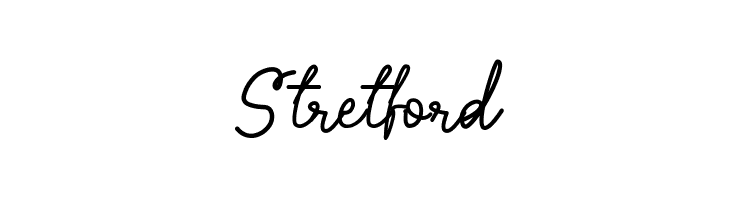
An ornate, decorative font with intricate flourishes and historical charm.
A bold, geometric font with a three-dimensional effect and strong visual impact.
A bold, 3D geometric font with a strong, impactful presence.
A bold, expressive script font with fluid, cursive strokes.
A bold, rounded, and playful font with a hand-drawn appearance.
A bold, rounded font with a playful and energetic style.
A dynamic cursive script font with fluid, interconnected strokes and a lively appearance.
A bold, geometric font with a modern and robust appearance.